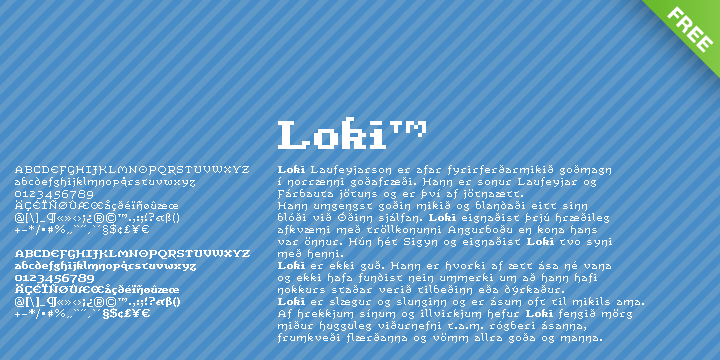
This highly decorative pixel font comes in Regular and Bold and contains the full English and Western European accented character set.
Use Loki in 10 pt size or multiples.